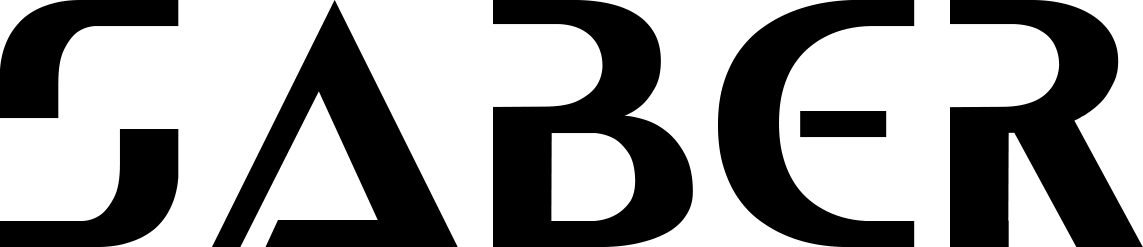
Saber Font
Designed byThomas Upton
Saber font has a super imaginative and futuristic font style. The characters are designed like mechanical parts, and the way that the designer draws lines that are not connected is reminiscent of stencil fonts. Sci-fi animation poster and video game design with this geometric font will be one of the most wonderful designs of its kind.